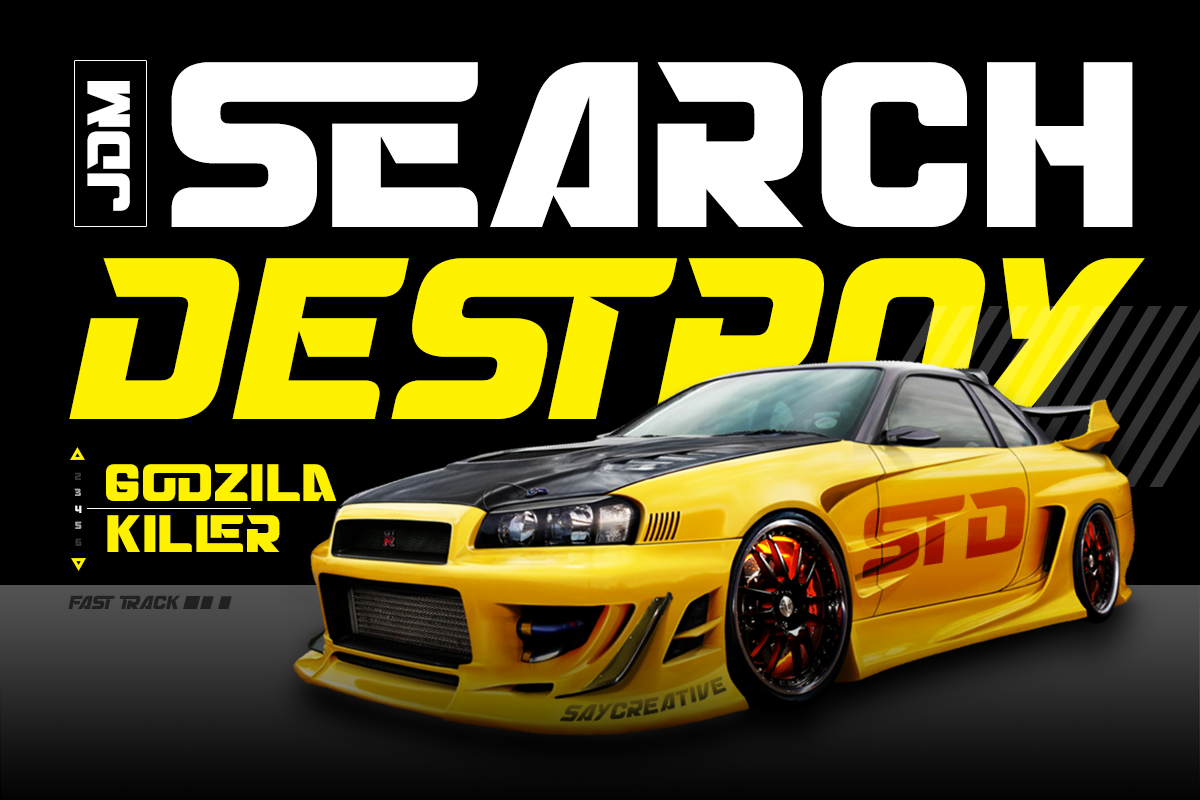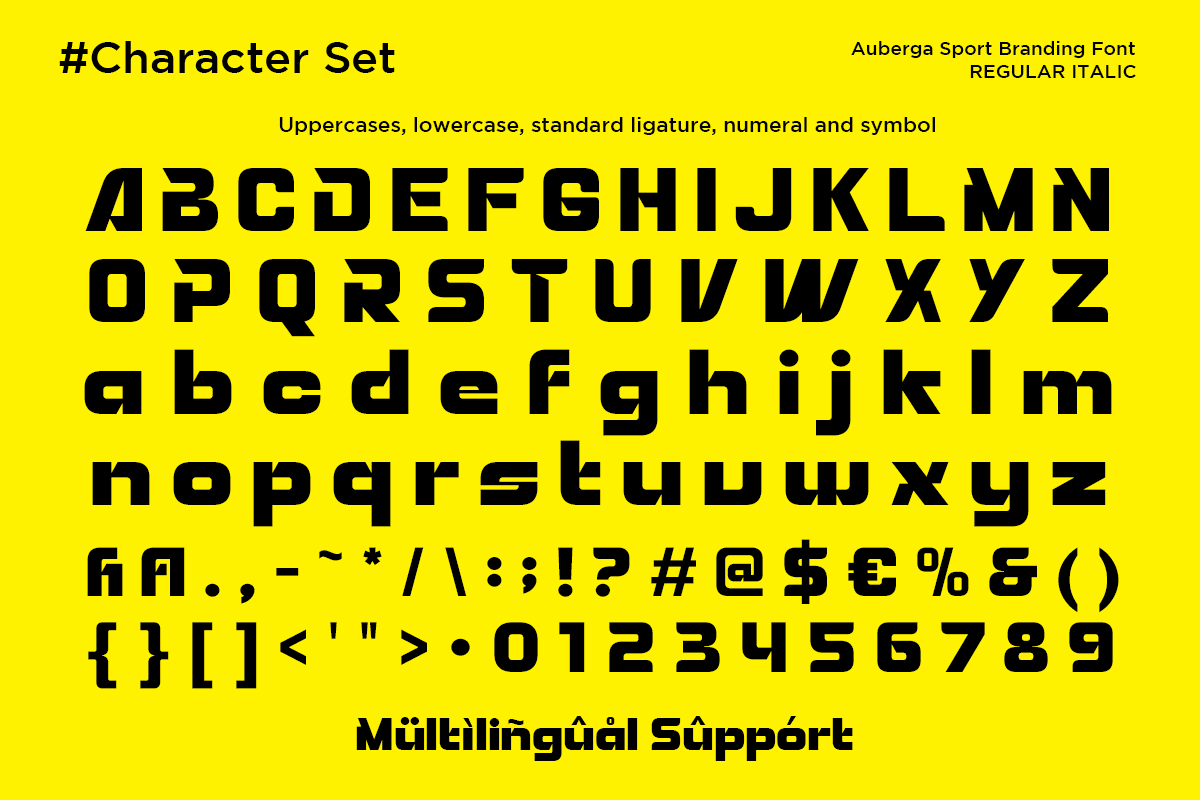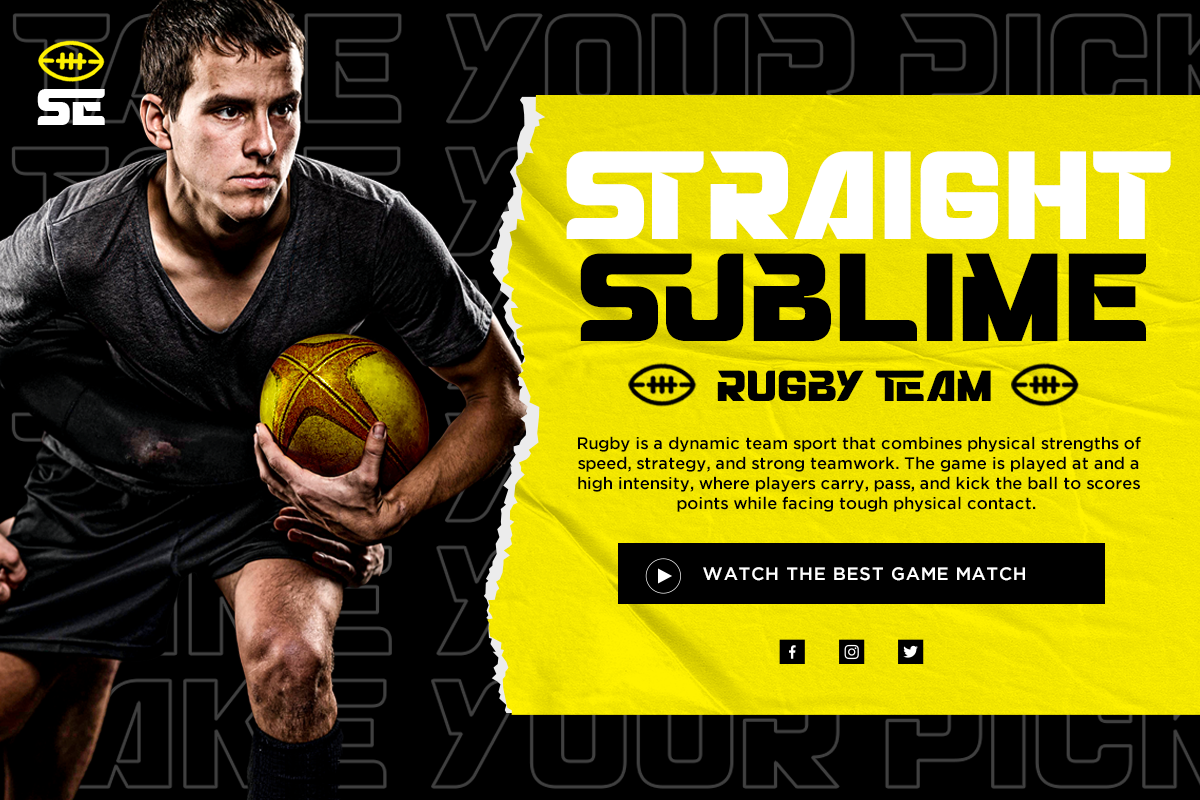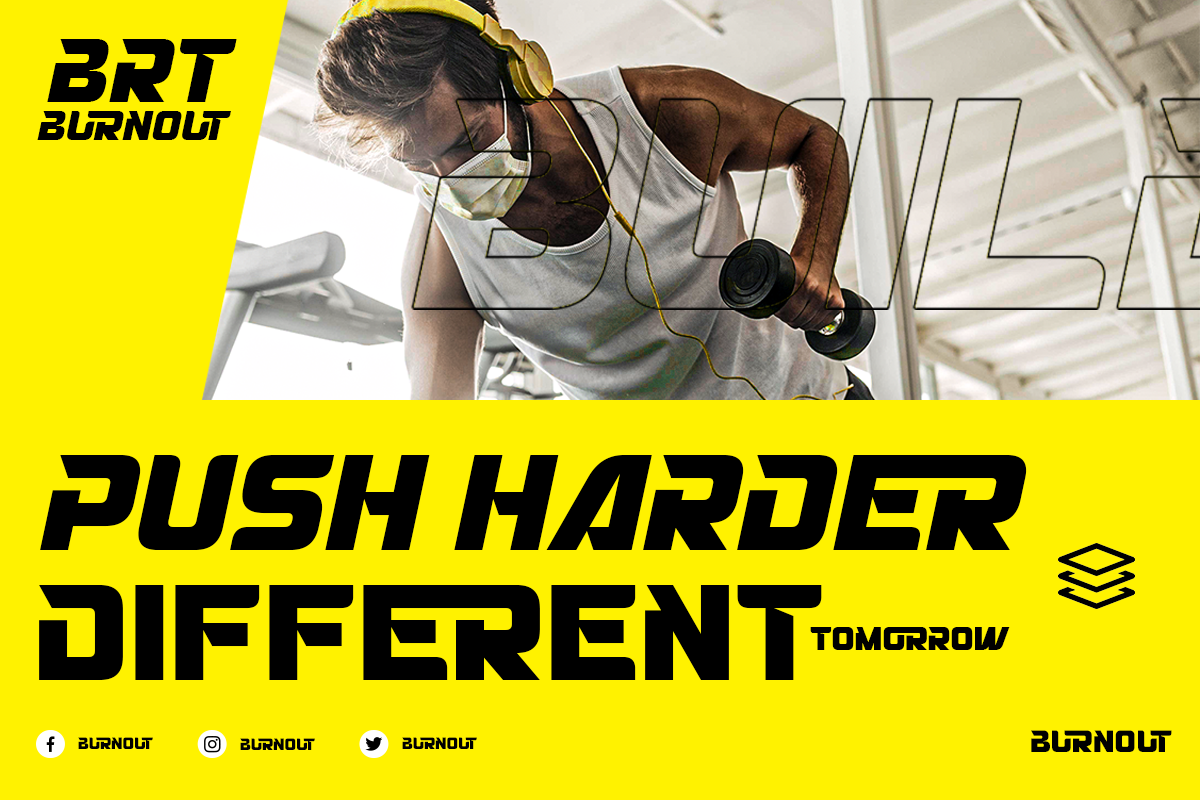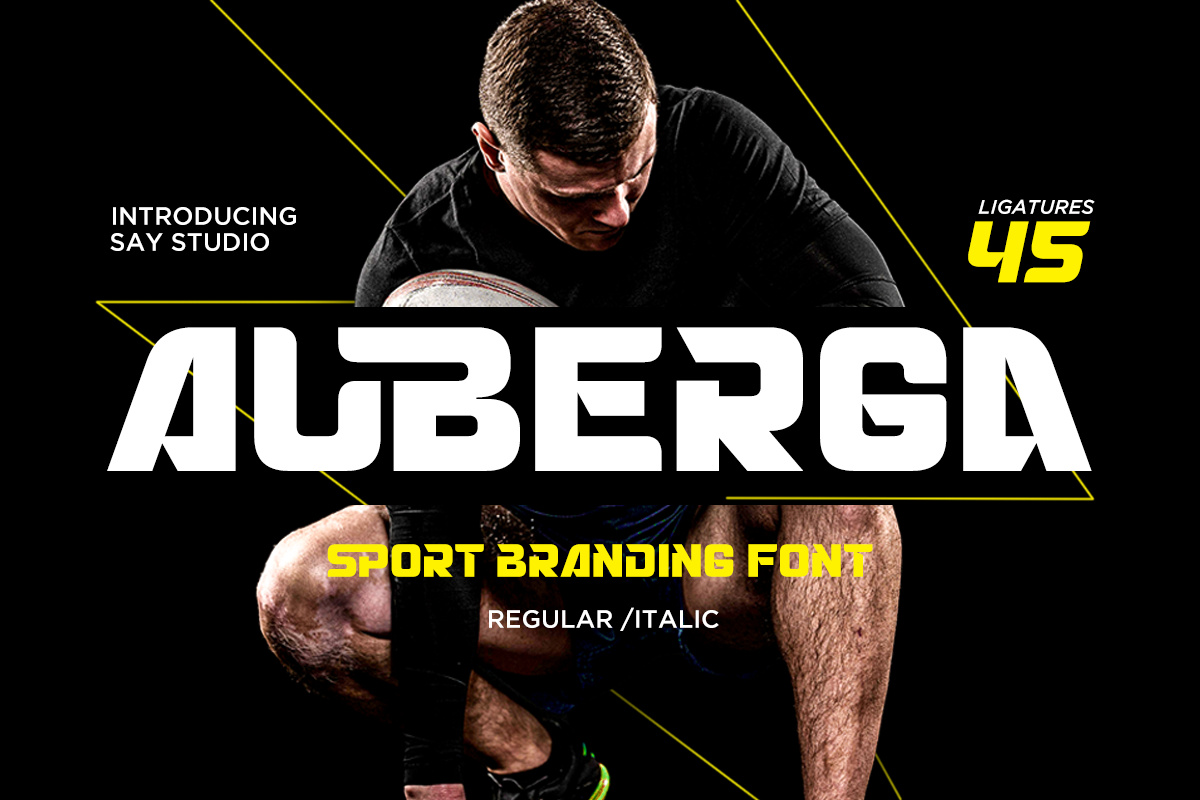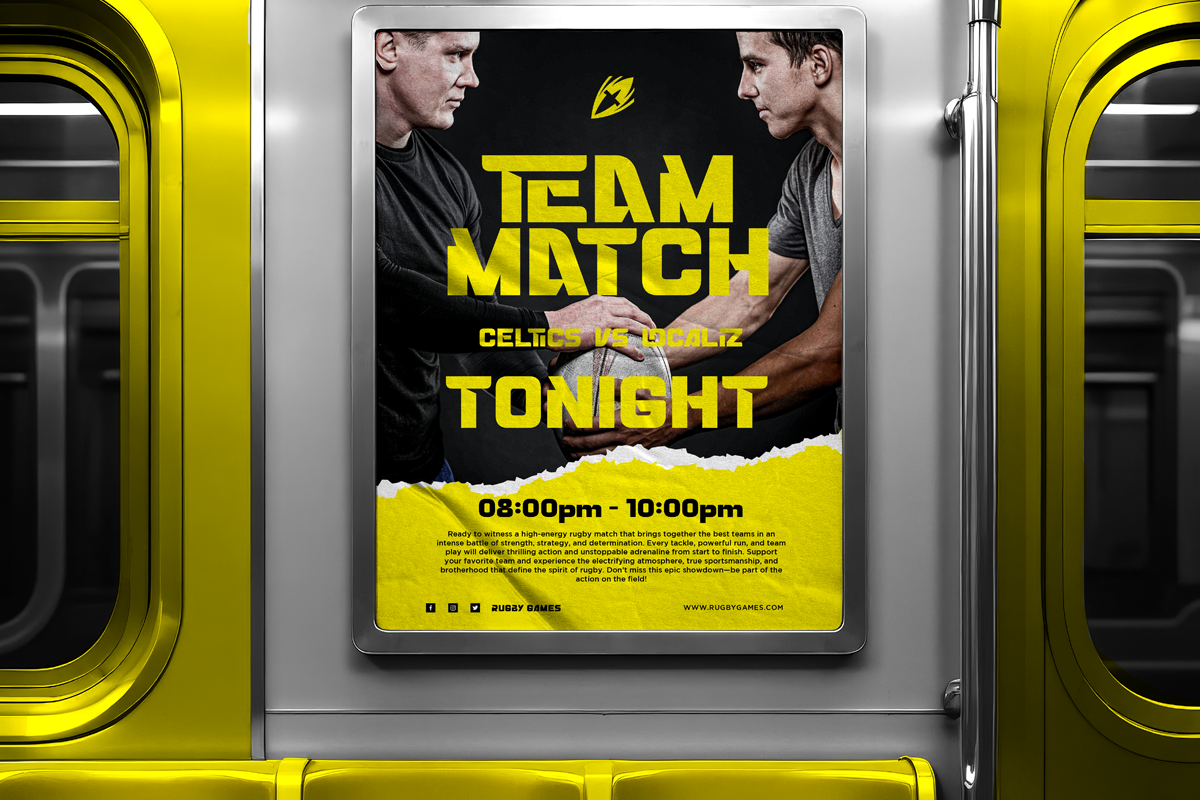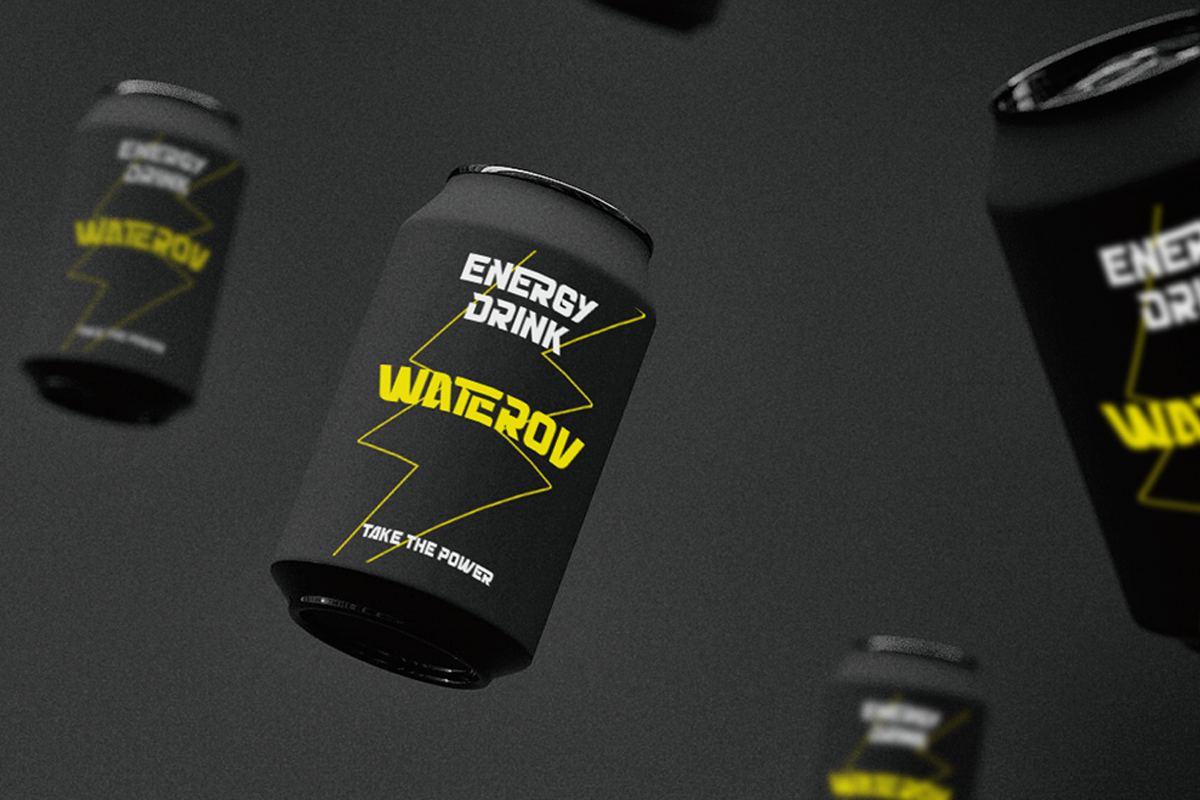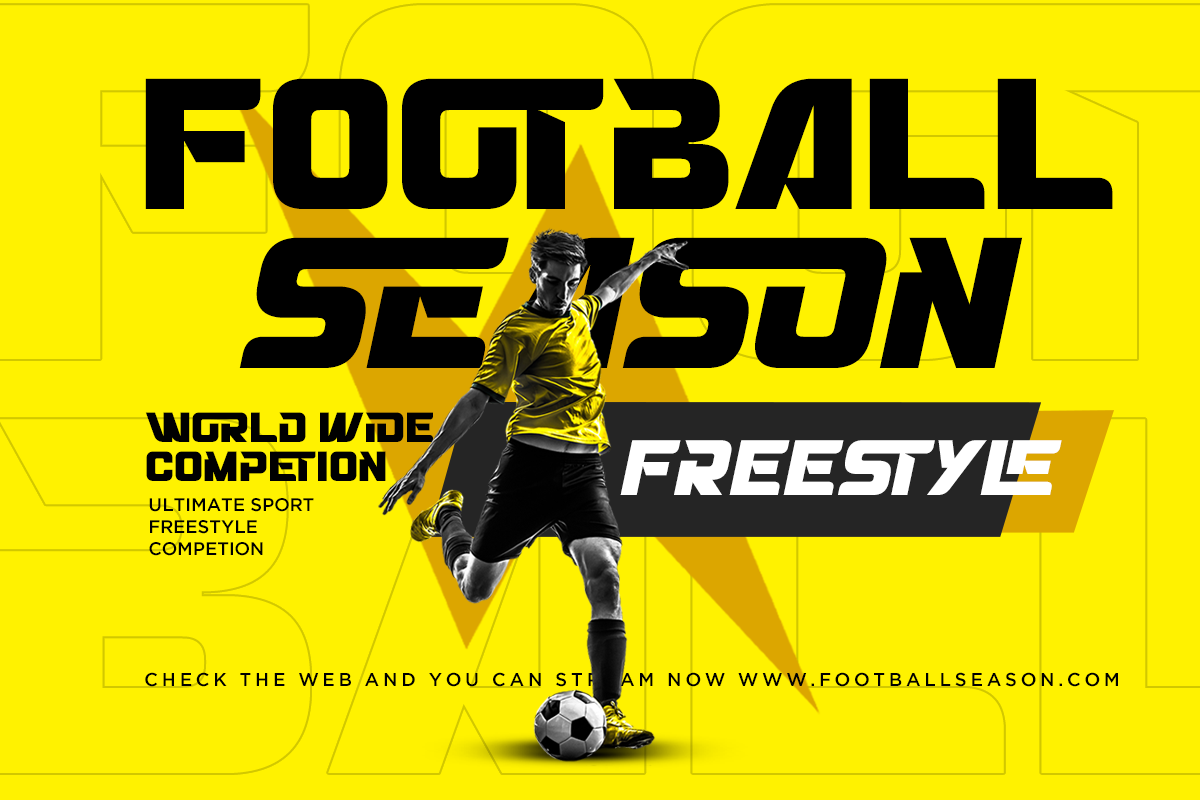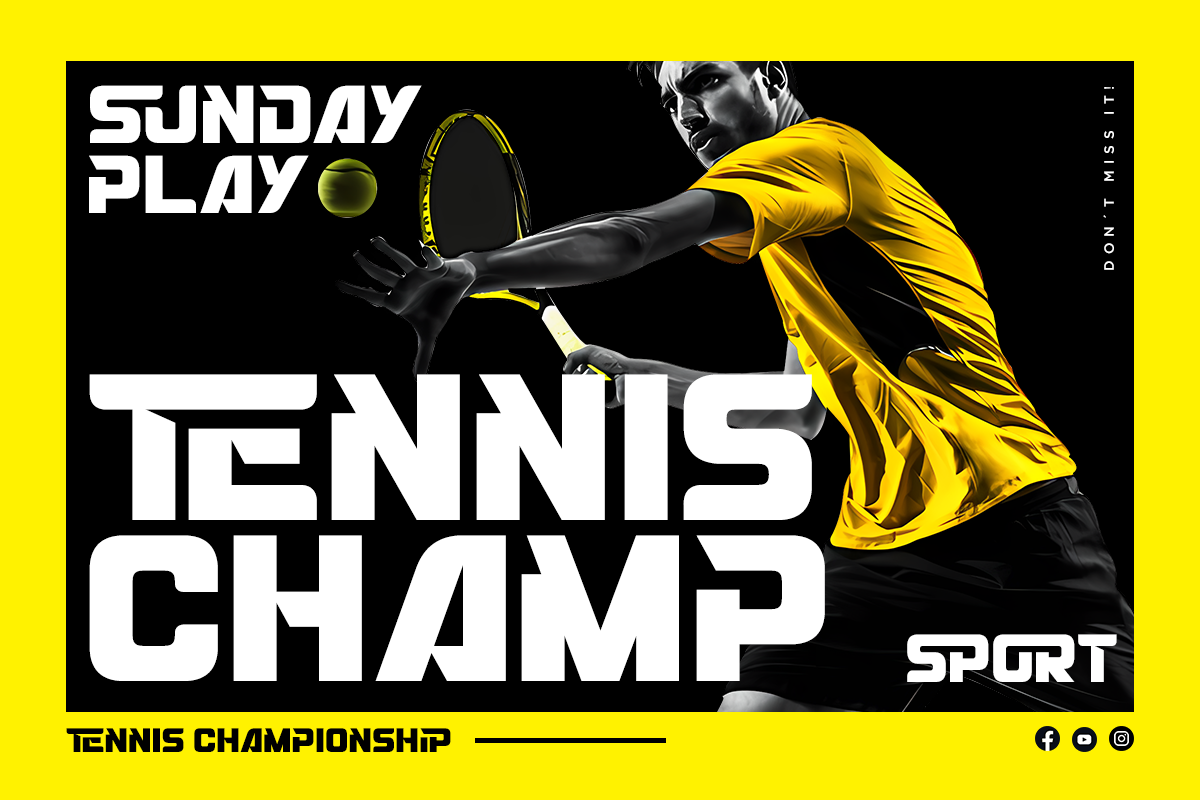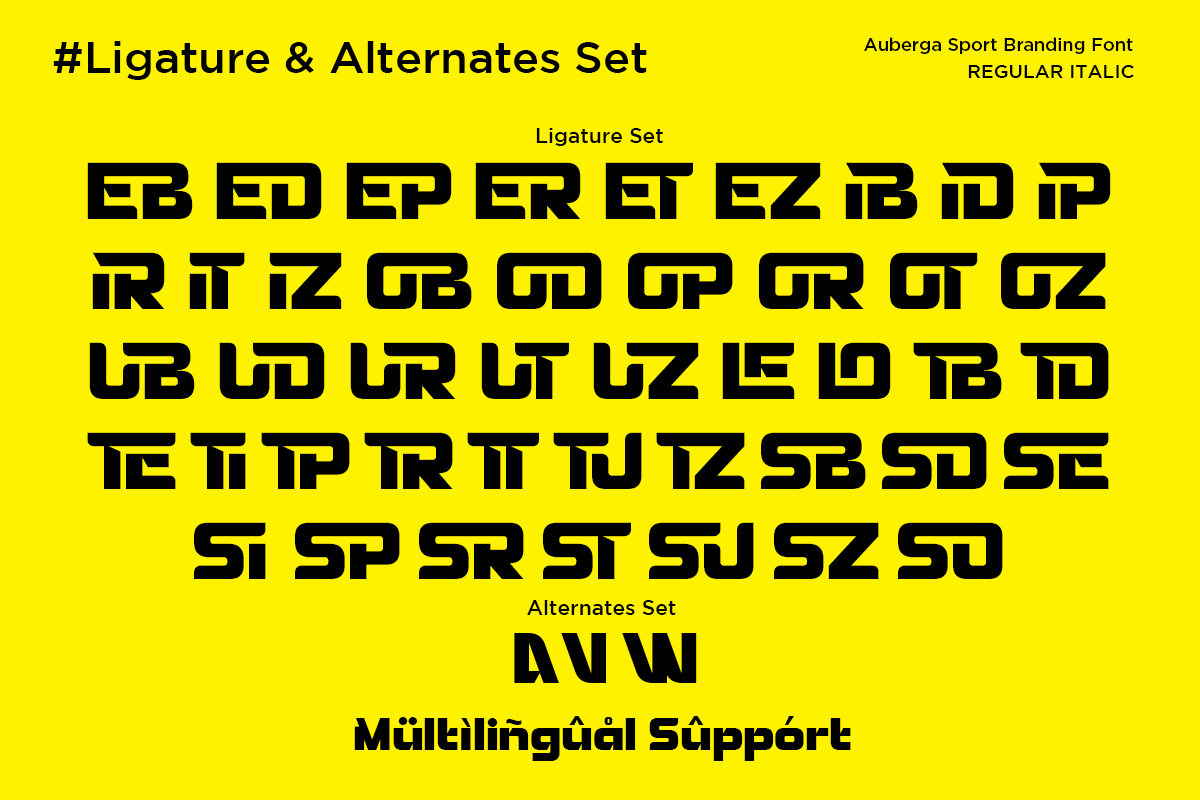
Auberga - Sport Branding Font
Auberga is a powerful sport branding font designed for high-impact visuals. This bold and dynamic typeface features strong letterforms and sharp details, making it perfect for sports branding, athletic logos, headlines, posters, esports designs, gym apparel, and energetic typography projects. Built to communicate strength, speed, and confidence, this font delivers a modern and competitive look for standout designs.
- Uppercase, Lowercase
- Alternates and ligatures
- Symbol, Number